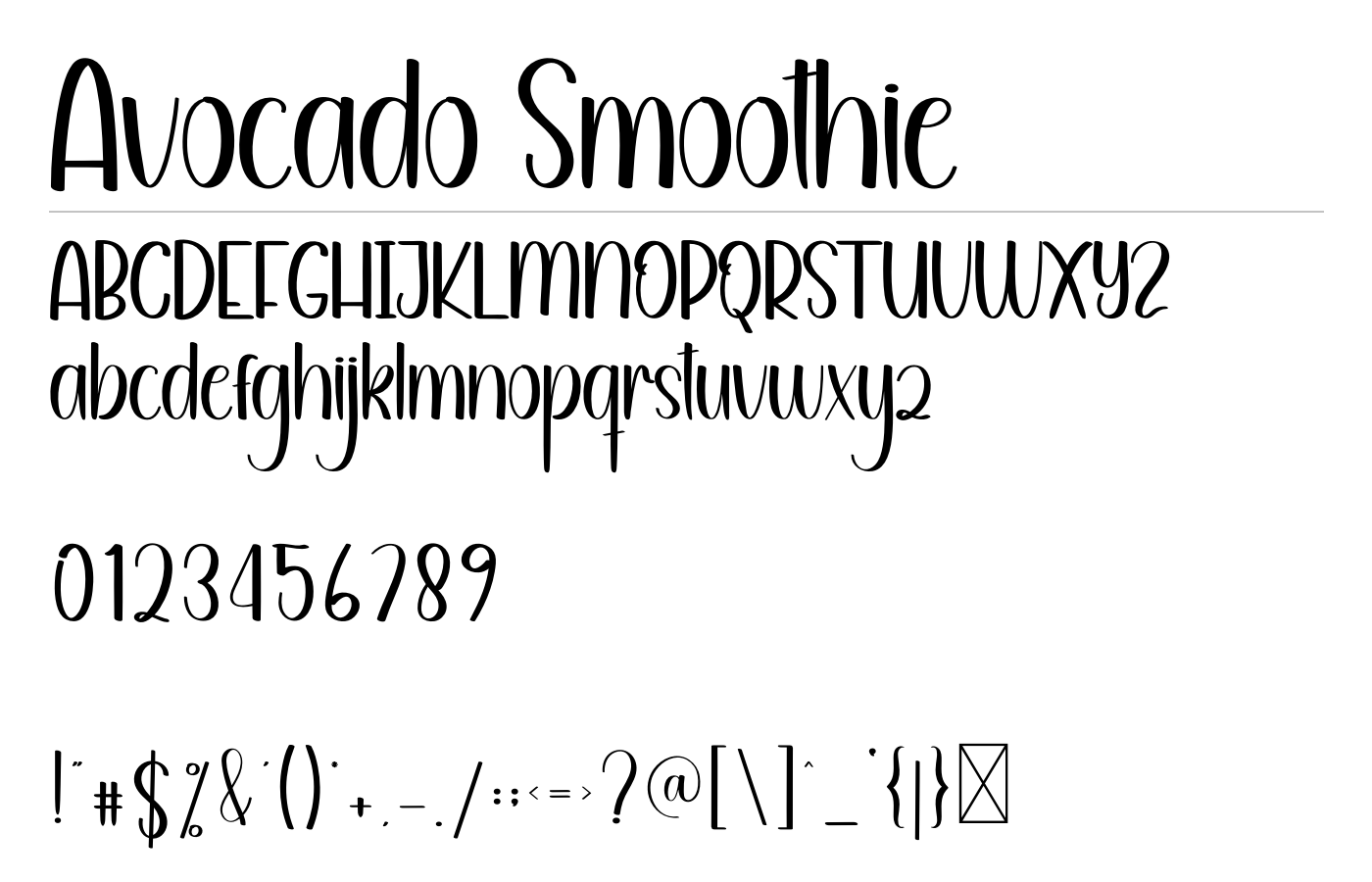
Avocado Smoothie is a playful and slender handwritten font featuring tall, narrow letterforms with a lively, casual feel. Its smooth, slightly irregular strokes and quirky curves create a warm, approachable personality, making it perfect for fun branding, invitations, and creative projects that seek a friendly, informal touch. This font works well in headlines and logos where a unique, cheerful vibe is desired.
Avocado Smoothie Font
About Avocado Smoothie Font